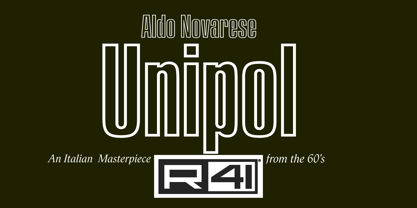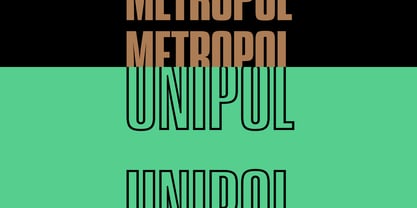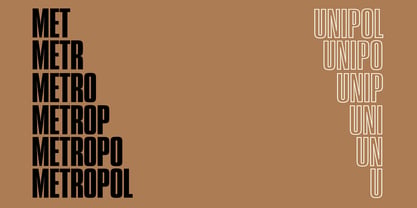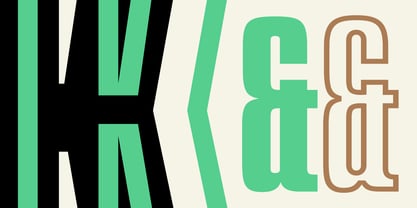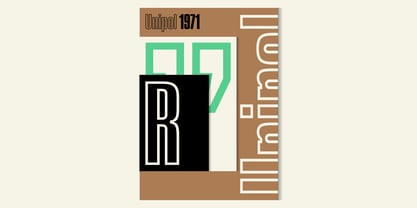
Unipol
by Reber R41
The Unipol Font Family was designed by Aldo Novarese, Fulvio Bisca, Stefano Torregrossa and published by Reber R41. Unipol contains 1 styles.
Belonging to the same family as Metropol, Unipol’s contoured shape gives it lightness and elegance. Used in compositions with Metropol, it achieves interesting graphic results. It was born a twin font but with a white soul: Unipol gets rid of the black ink fillings and keeps only the outlines of the other, even if — as happens with all twins — the features are not entirely identical. It is the yang of the couple: tall and powerful, with the sober elegance of subtraction.
About Reber R41
Reber R41 is an Italian company founded in Spresiano, Treviso, in 1960 by Renato Bernardi, inventor of his own method of dry transfer type, and still run by his family. Since 1969, R41 has produced dry-transfer adaptations of iconic designs from Nebiolo Type Foundry, including its most experimental creations designed for the booming Italian advertising industry. Designer Aldo Novarese, who retired from Nebiolo in the early ’70s, worked with Reber R41 for years afterward designing brands, catalogues, advertising and of course…typefaces. Now Reber R41 provides new digitizations of the work of Novarese and Nebiolo of Turin, brought together in a unique collection that preserves the best of historic Italian typography of the twentieth century.